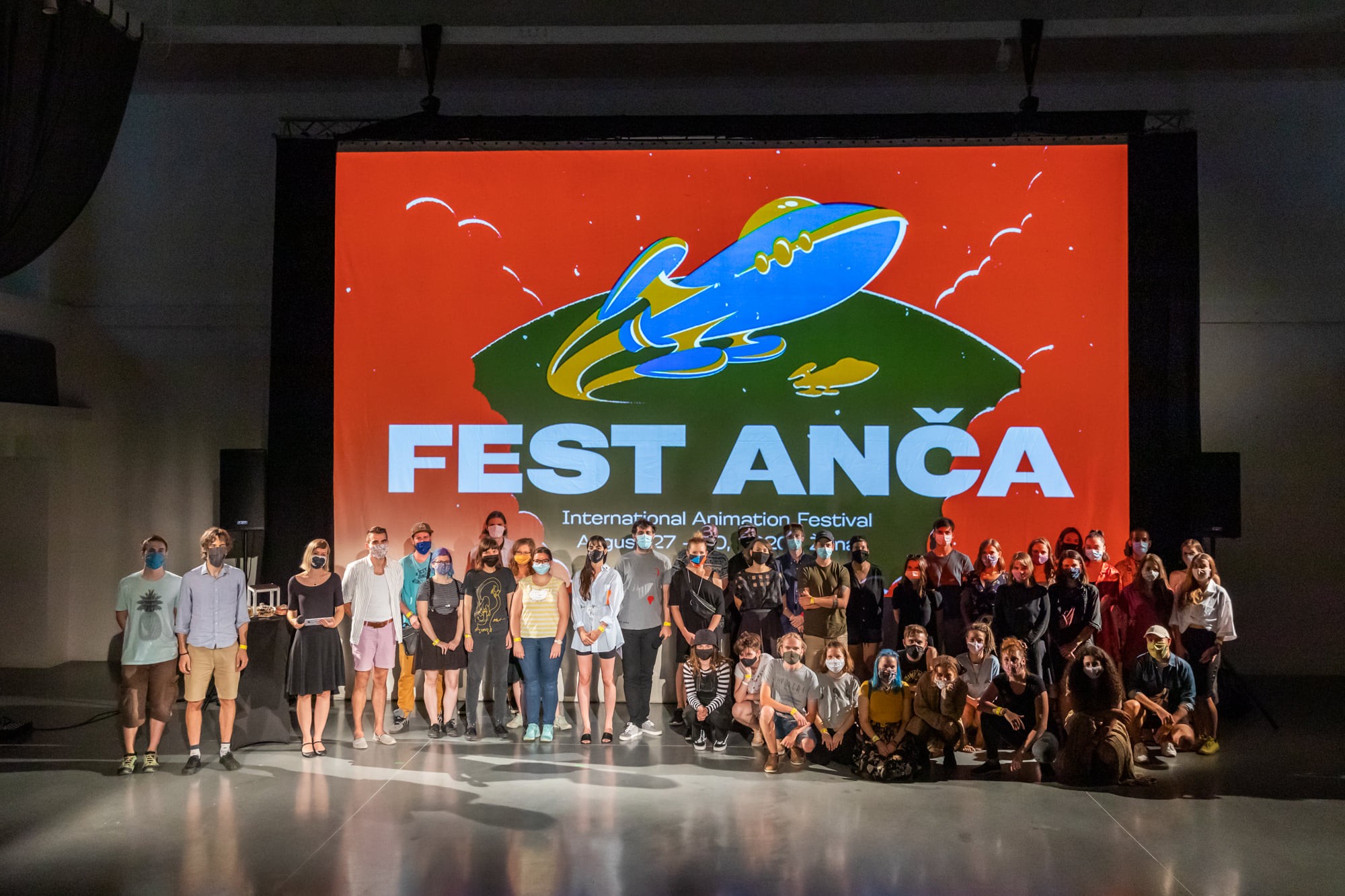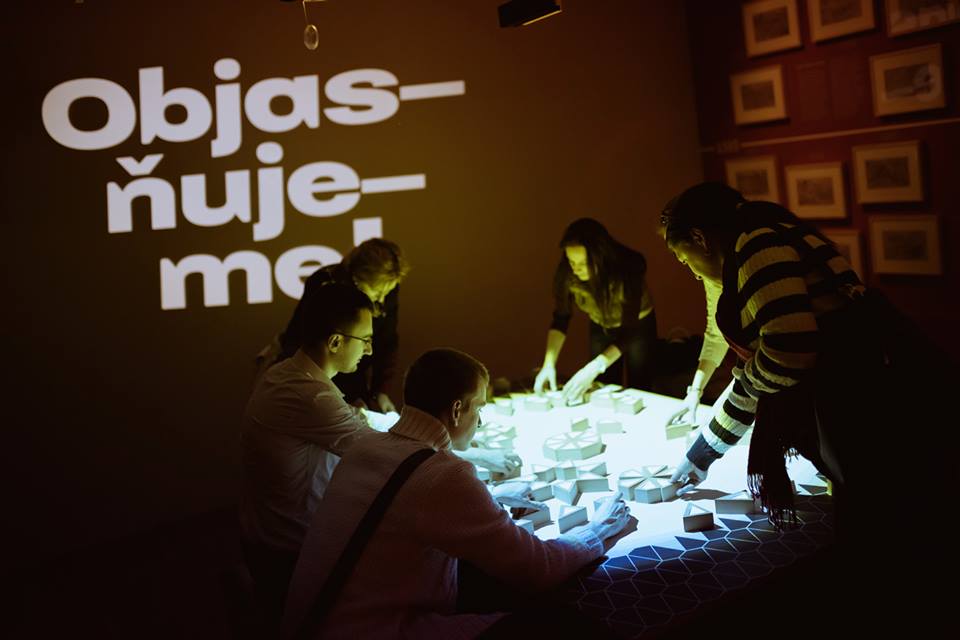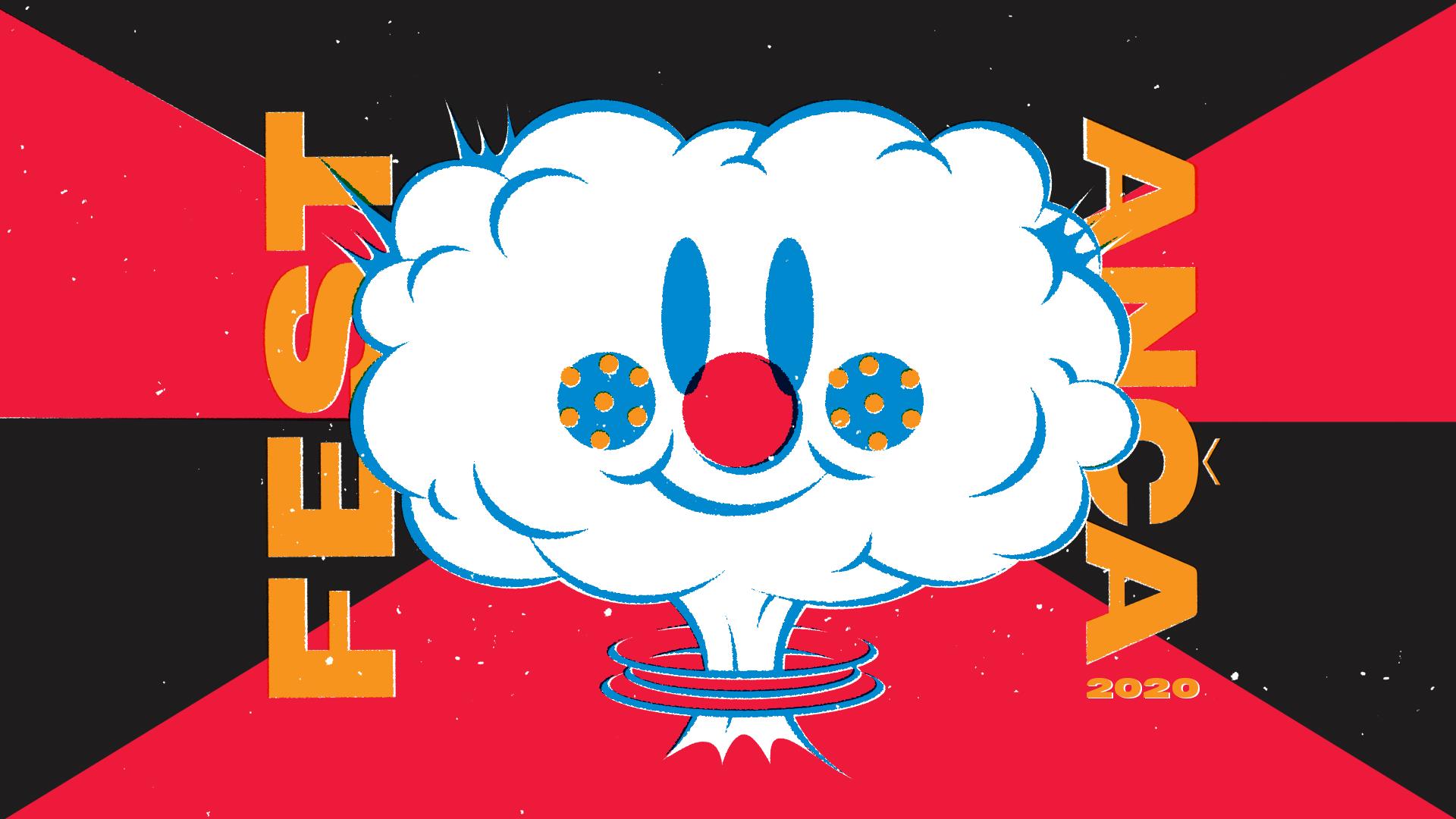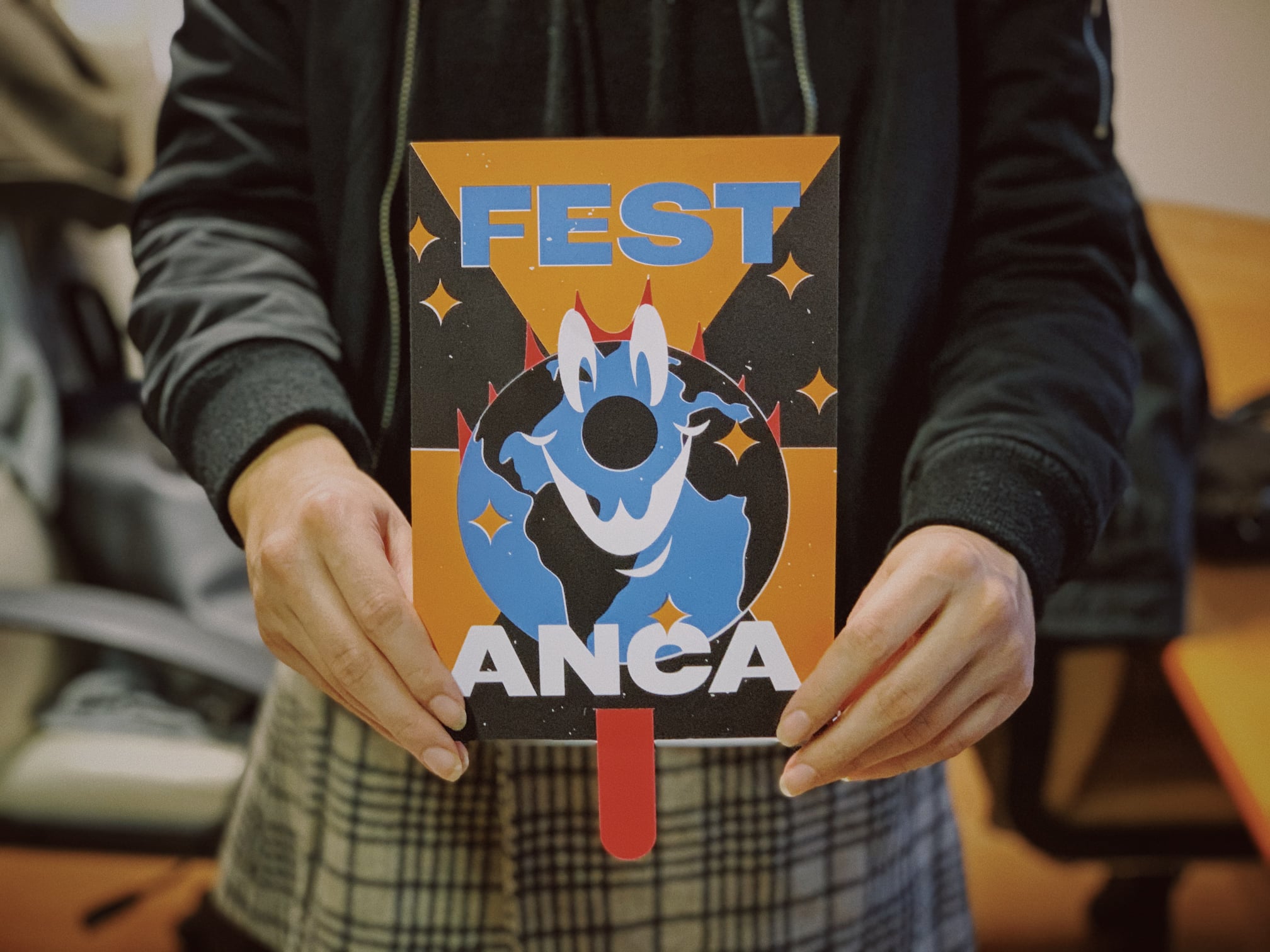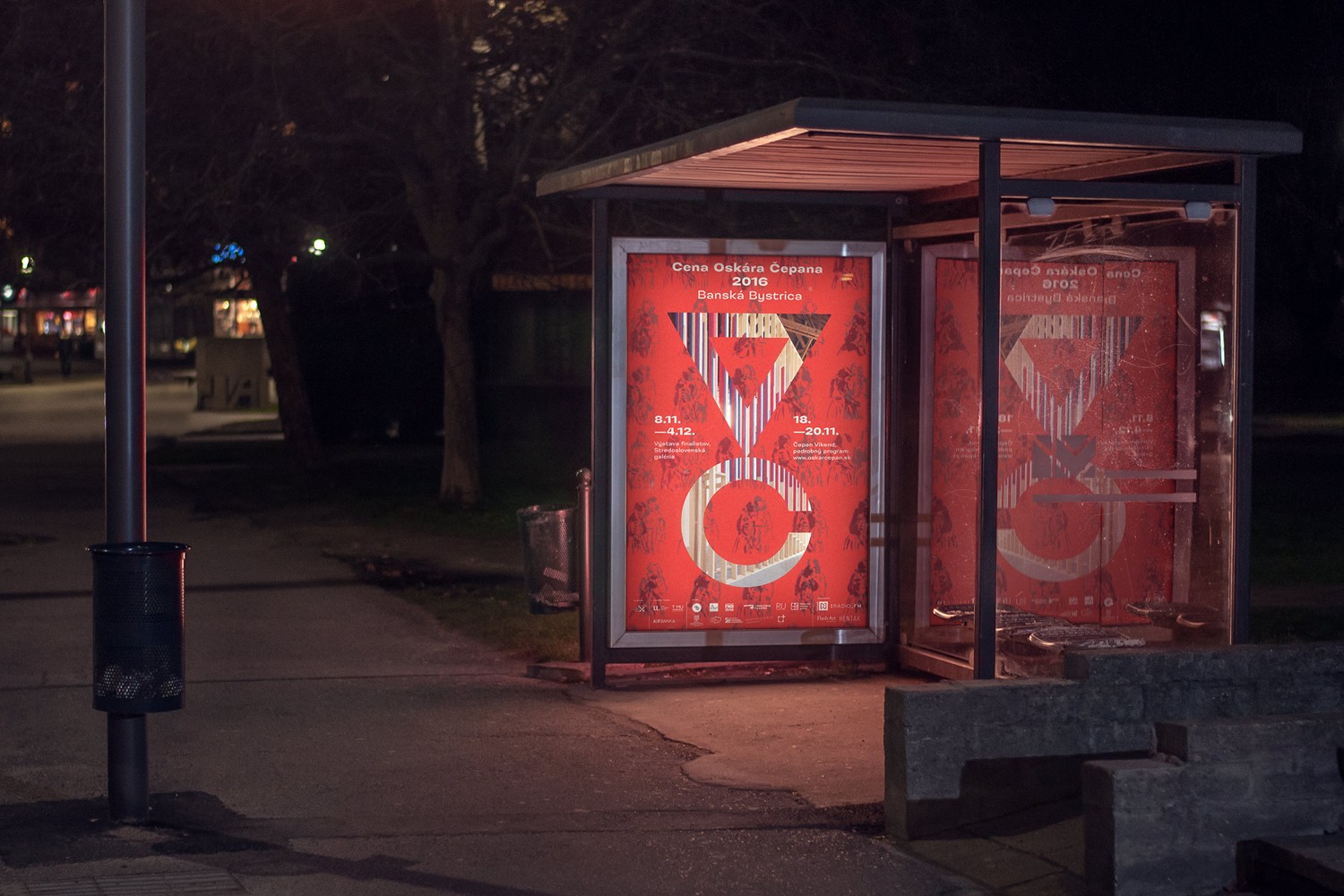
About Kontrast Grotesk Display Typeface
Display companion for Kontrast Grotesk
Kontrast Grotesk Display & Grande are true display companions for Kontrast Grotesk, reinterpreting the features of Kontrast Grotesk into display sizes. There are many differences making the typeface works better in big sizes. These includes changes like – equal height of the uppercase and ascenders, tighter character spacing, no inktraps and narrower diacritic signs. Proportions are little different as well. Family have been extended from 5 to 12 weights (from super slim Hairline to Ultra Black).
Sans-serif, Grotesque, Display